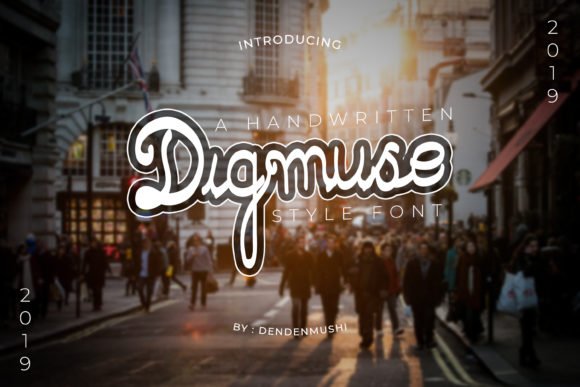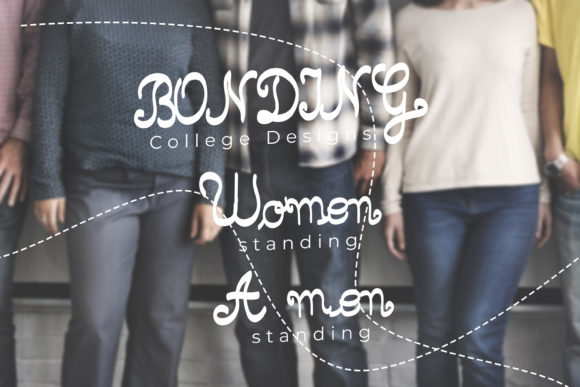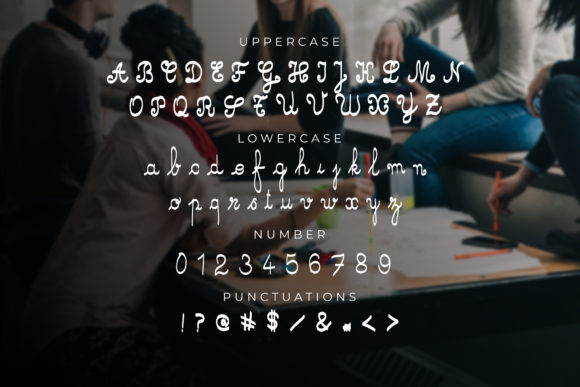
The Perfect Font for Your Next Design Project
Have you ever stared at a blank page, trying to find the perfect font to bring your design to life? We’ve all been there – the blank page staring back at us, taunting us to make the perfect choice. But what if I told you that the solution to your design dilemma lies in the unique, cool, and modern display font – the Digmuse Font? This beautiful font is designed to add an authentic touch to any design project, making it perfect for creative minds.
As a designer, you know how crucial the right font can be in making your project stand out. And that’s exactly what the Digmuse Font offers – a unique handwritten look that will elevate your design to the next level. Whether you’re working on a logo, brochure, or website, the Digmuse Font is a valuable addition to your design toolkit.
Digmuse Font Key Features
- Font Family: Digmuse comes in 4 font styles: Regular, Italic, Bold, and Bold Italic.
- Language Support: Digmuse supports over 100 languages, including Latin, Cyrillic, and Greek alphabets, making it a versatile font for global designs.
- Unique Characteristics: Digmuse features a unique blend of modern and vintage elements, with a distinctive flair that adds a touch of sophistication to any design.
Digmuse Font Review
Overall, I found the Digmuse Font to be a decent addition to any designer’s toolkit. While it has its quirks, it also offers some unique features that make it stand out.
- Unique and playful aesthetic: The Digmuse Font has a distinctive look that’s perfect for designers looking to add some personality to their projects.
- Good for titles and headings: The font’s bold lines and large x-height make it ideal for titles and headings, where it can really shine.
- Legible at various sizes: Despite its unusual design, the Digmuse Font remains legible even at small sizes, making it a good choice for a variety of applications.
- Limited versatility: While the Digmuse Font works well for titles and headings, it may not be the best choice for body text or long blocks of text, where its unusual design can become overwhelming.
- Not suitable for small screens: The font’s bold lines and large x-height can make it difficult to read on small screens, such as smartphones or tablets.
Overall, I’d give the Digmuse Font 3.5 out of 5 stars. While it’s not perfect, its unique aesthetic and legibility make it a solid choice for designers looking to add some personality to their projects.
Tips for Getting the Most Out of Digmuse
Use Digmuse for headlines and titles to add a touch of sophistication and elegance.
Pair Digmuse with other fonts to create a unique and visually appealing typography.
Experiment with different font sizes, colors, and styles to achieve the desired look.
Use Digmuse for:
Brand logos and identity
Headlines and titles
Business cards and station